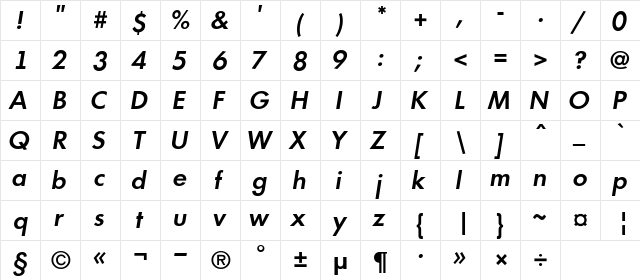
a_FuturicaLt SemiBoldItalic Font Preview
| Style | SemiBoldItalic |
Design Context for a_FuturicaLt Typeface
a_FuturicaLt has a distinctly futuristic character, with geometric precision and clean angles that feel at home in technology, gaming, and sci-fi contexts. Its italic angle brings a sense of urgency and motion to the letterforms. The heavy weight commands attention and anchors typographic hierarchies.